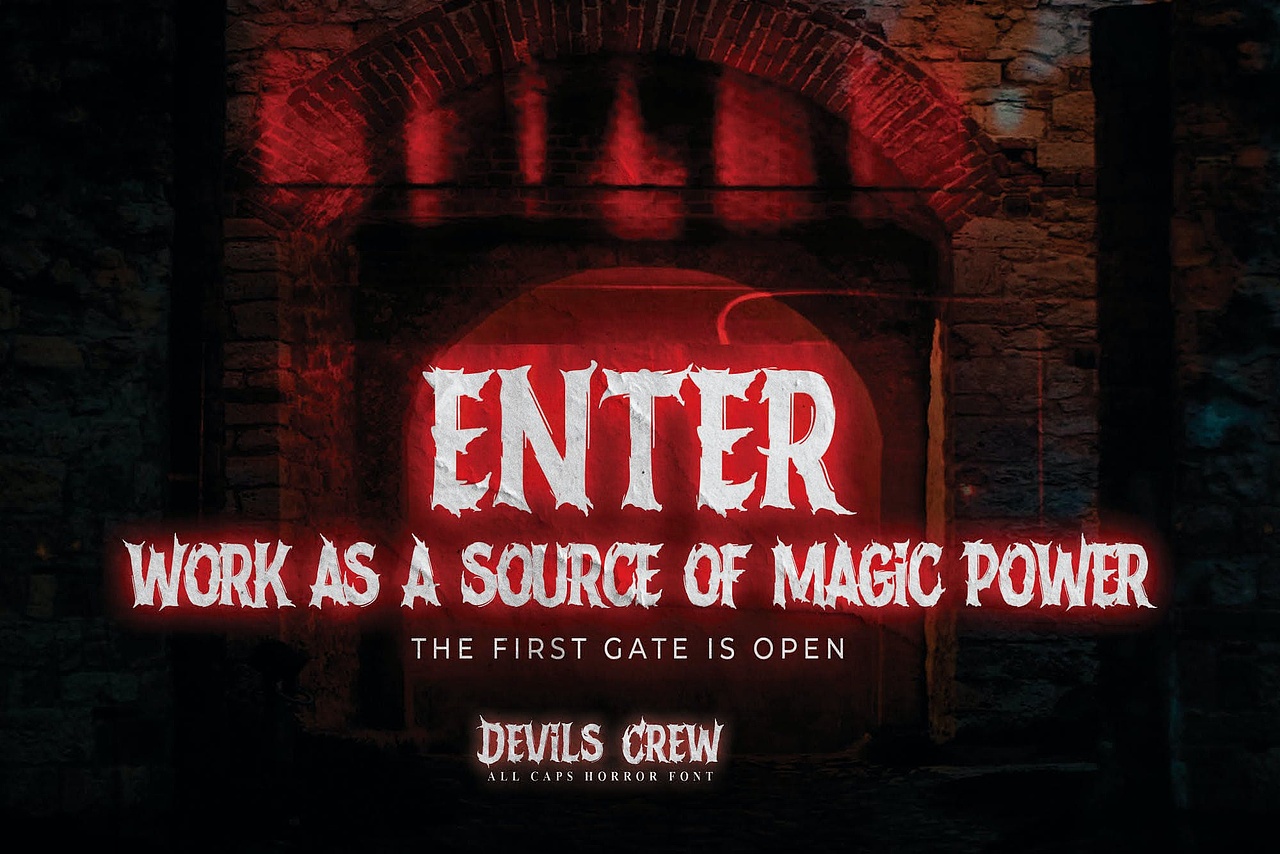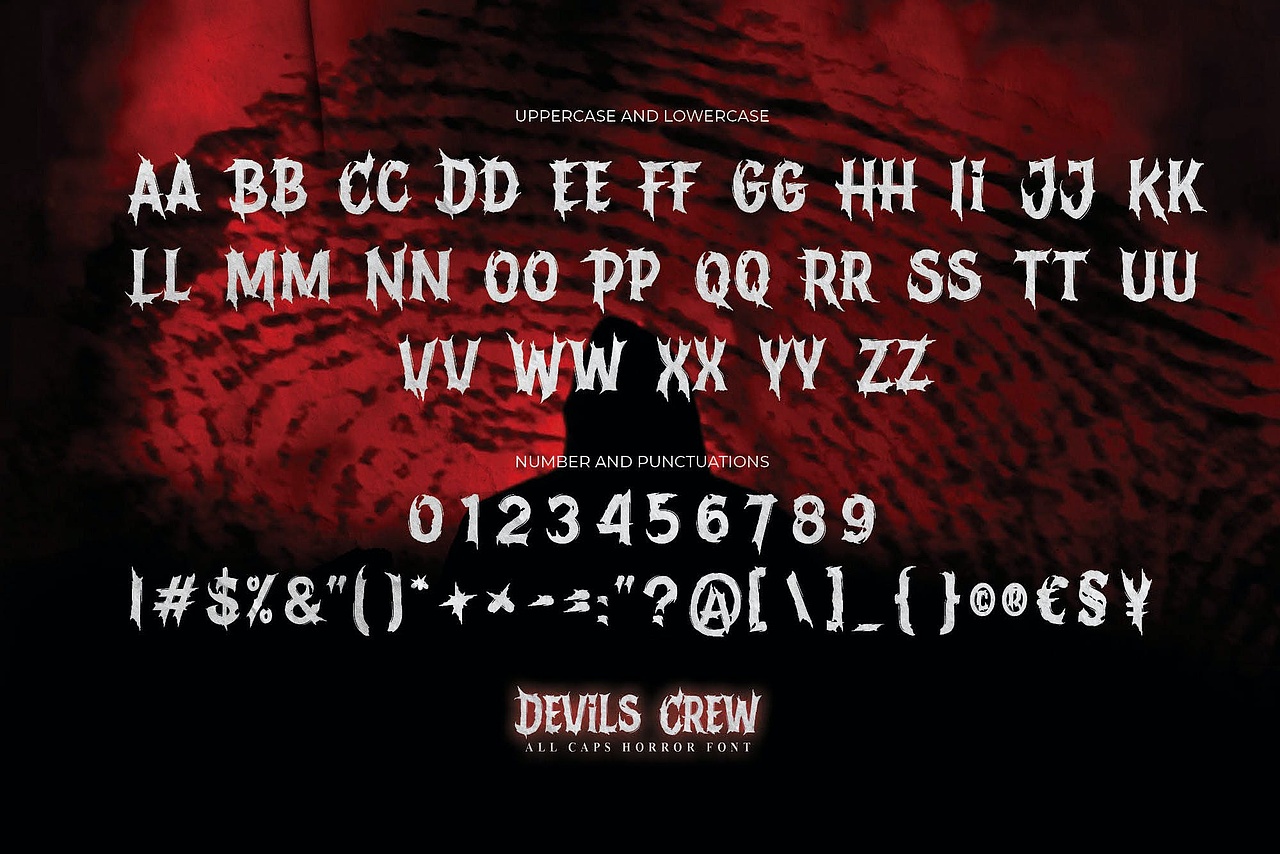
Devils Crew - All Caps Horror Font
Hello Everyone, introduce our new product Font Devils Crew it is All Caps Horror Font.This is a Textured Natural Style and classy style with a clear style and dramatic movement.
This font Devils Crew is great for your next creative project such as logos, printed quotes, invitations, cards, product packaging, headers, Logotype, Letterhead, Poster, Design this font is great for your creative projects such as watermark on photography, and perfect for logos & branding, invitation,advertisements,product designs, stationery, wedding designs,label ,product packaging, special events or anything that need handwritting taste. That is has charming, authentic and relaxed characteristic more natural look to your text.